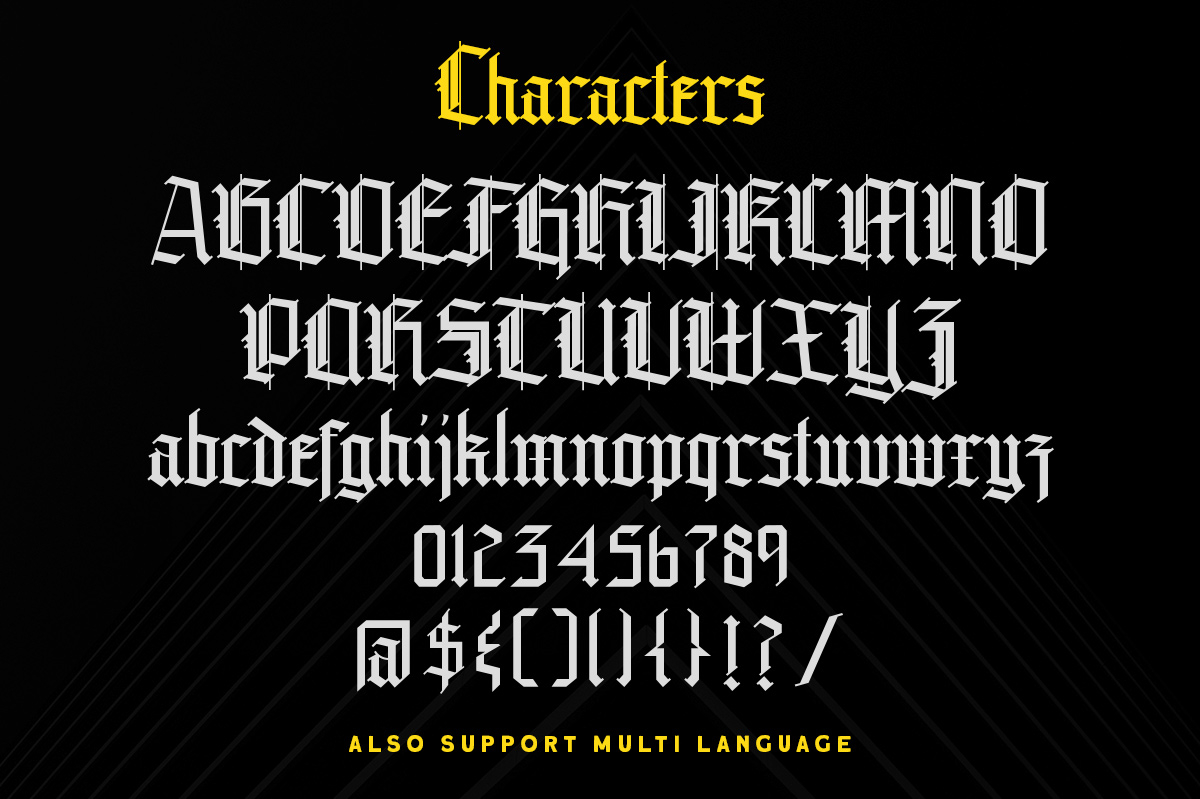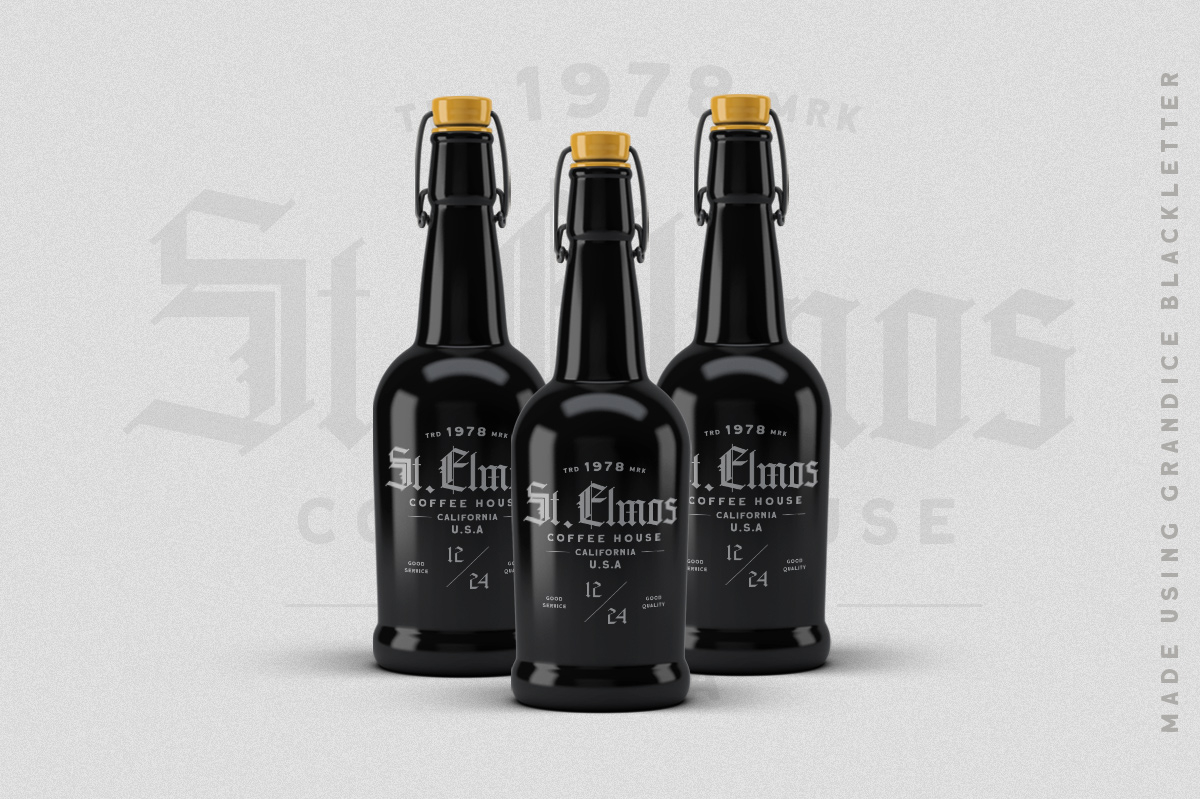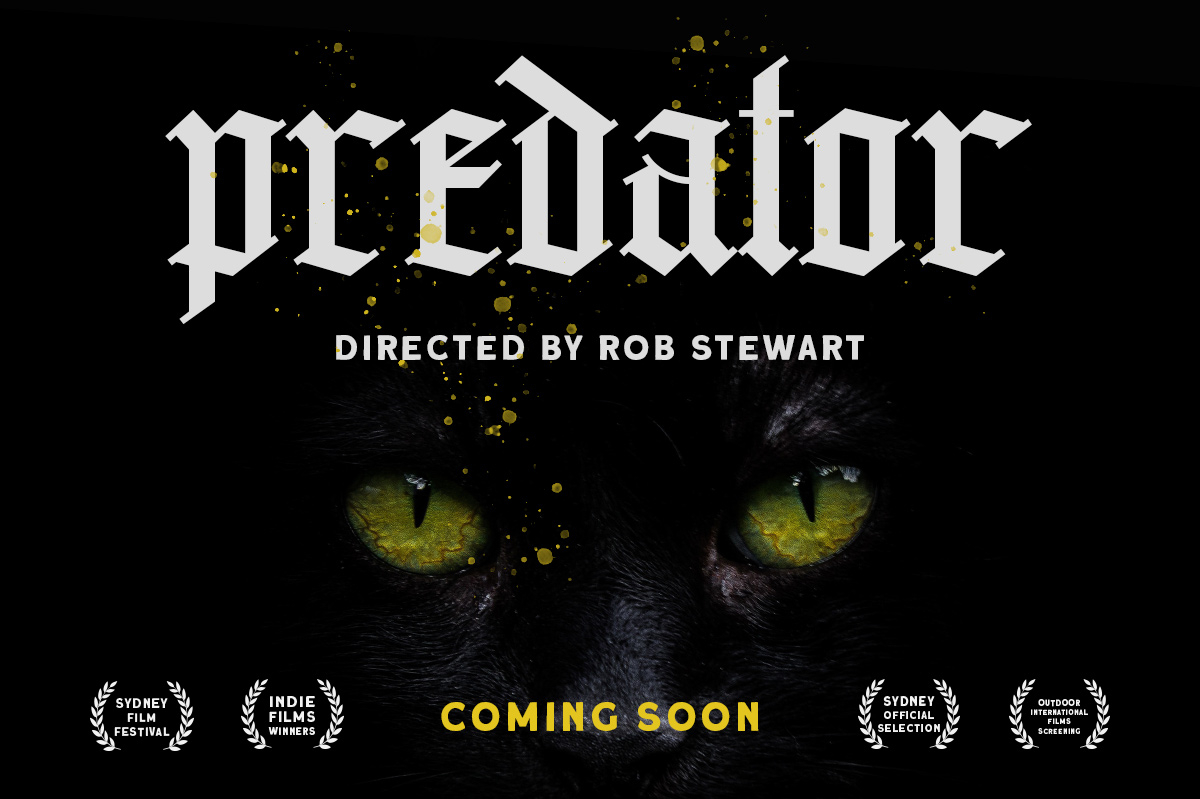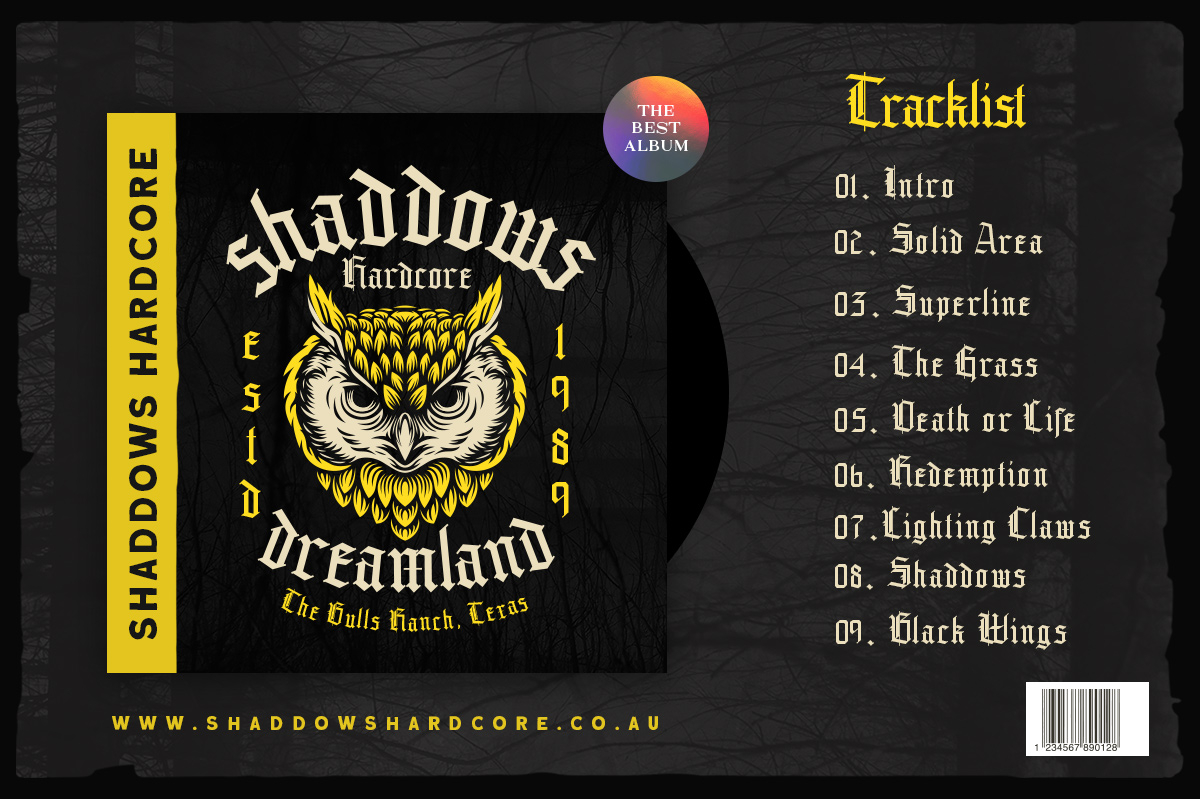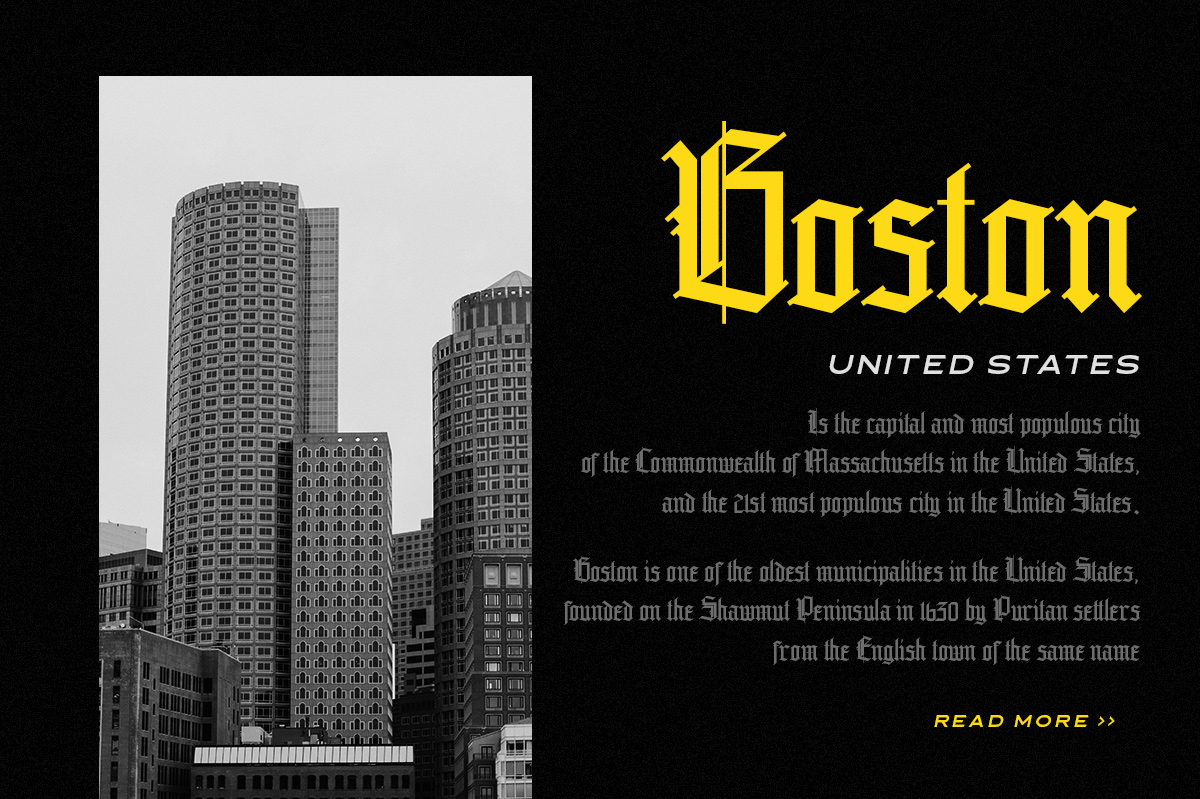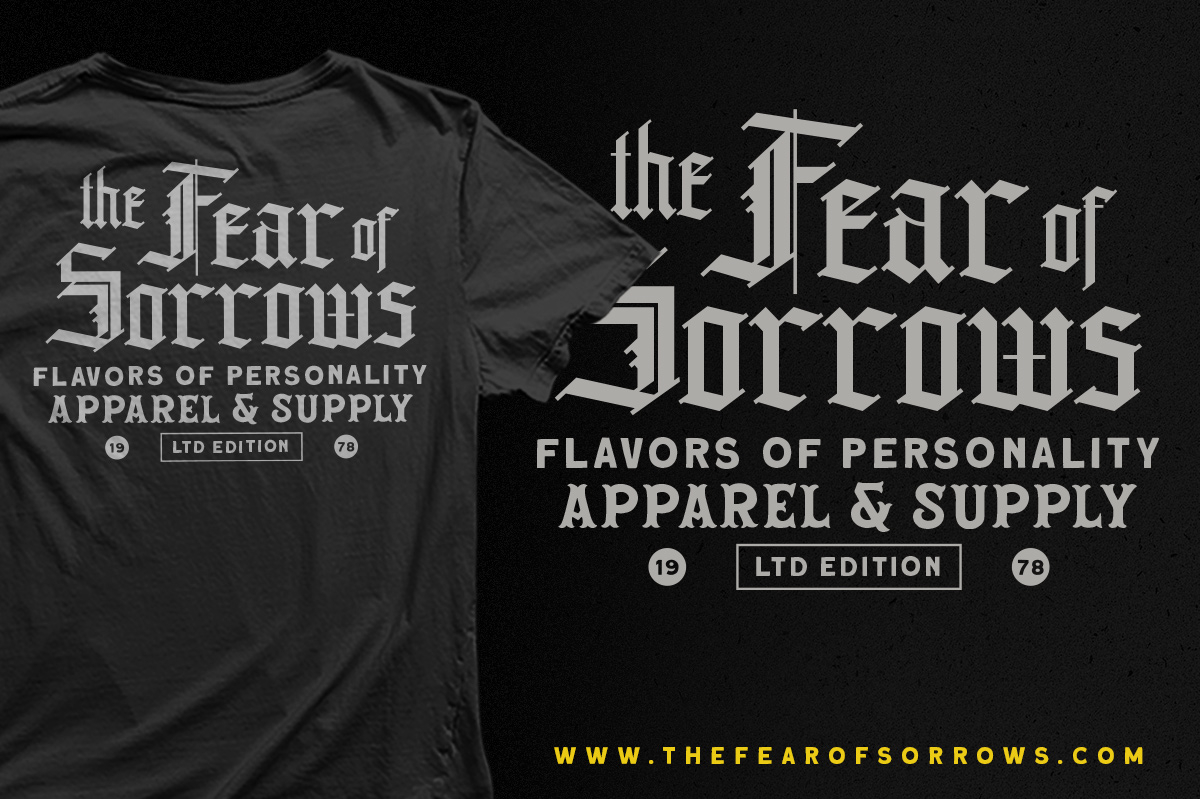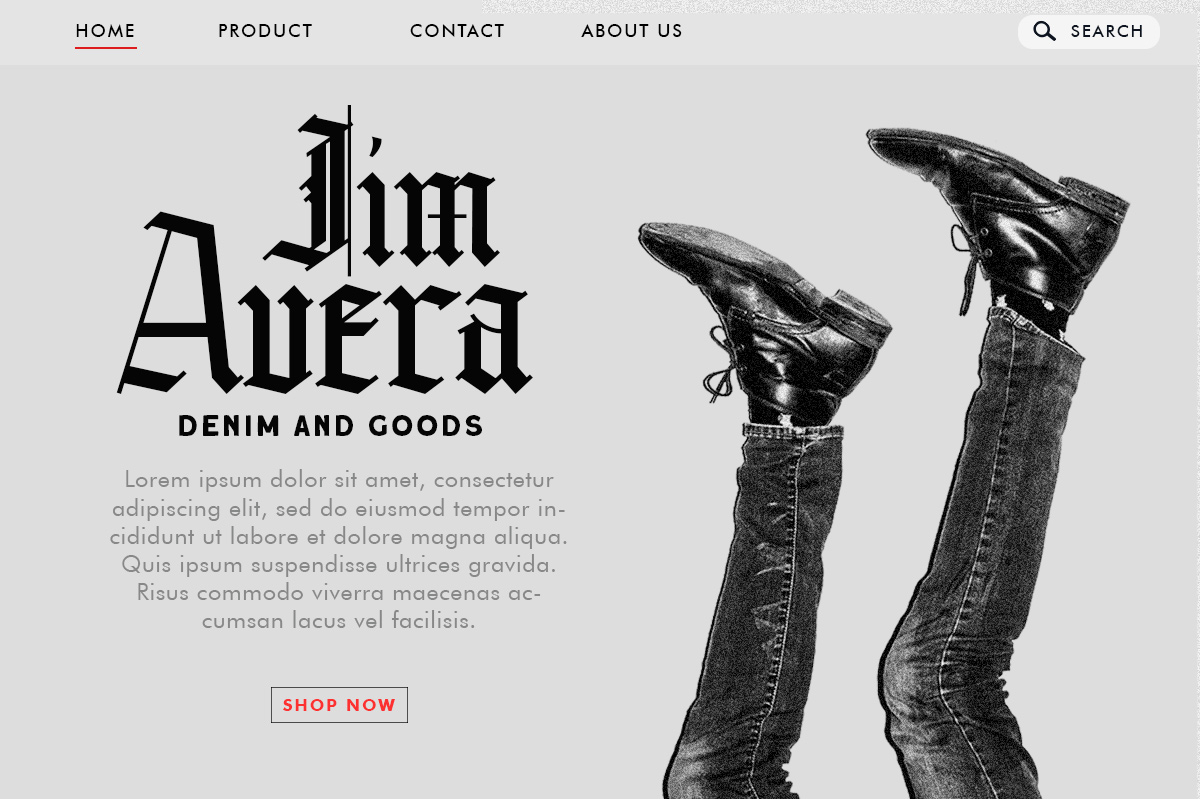
Grandice Font
About Grandice Font
Grandice is a gothic styled blackletter font. Add this font to your creative ideas and notice how it will make them stand out!